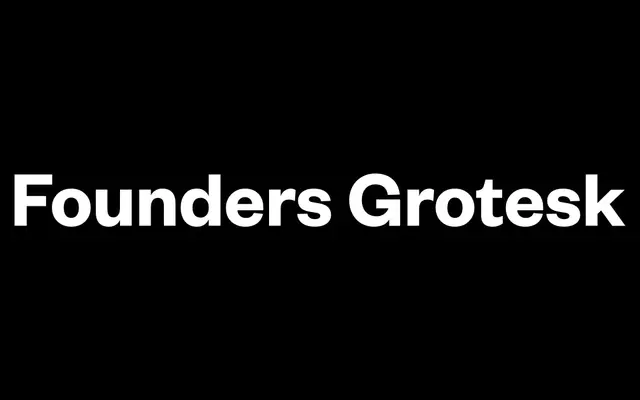
Founders Grotesk
Klim Type Foundry · Kris Sowersby · 2010
A grotesk family rooted in early 20th century British models and Helvetica's Halbfett spacing, made for modern editorial and brand work.
A grotesk by Kris Sowersby that pulls rudimentary geometry and serpentine curves from Millar & Richard's Grotesque series, details from H. W. Caslon's Doric, and tight spacing strategies from Helvetica's Halbfett (Medium) headline metal cuts. Five upright weights run from Light to Bold across ten styles, and the wider system extends into Founders Grotesk Text, Mono, Condensed and X-Condensed. Common in editorial, fashion and brand identity when the brief calls for a slightly warmer, less corporate alternative to Helvetica.
Klim classifies it as Modern: Lineal/Grotesque; an amalgamation of classic grotesks drawing on Millar & Richard's early 20th century Grotesque series, H. W. Caslon's Doric series, and the tight spacing of Helvetica's Halbfett (Medium) headline metal cuts from the late 1950s.